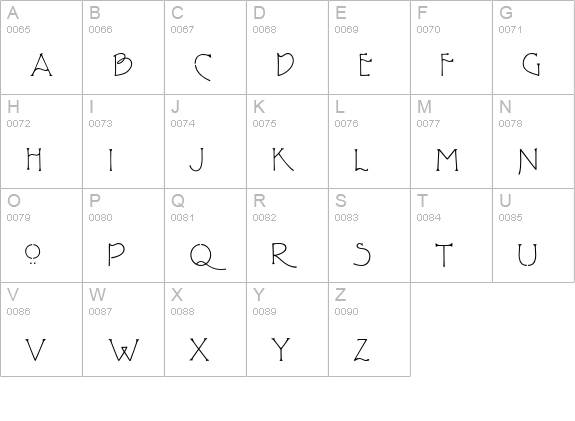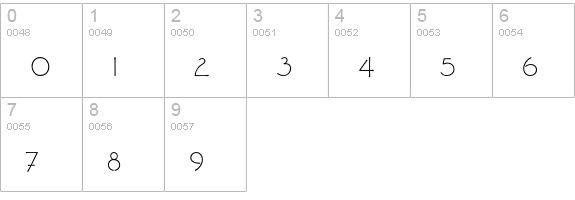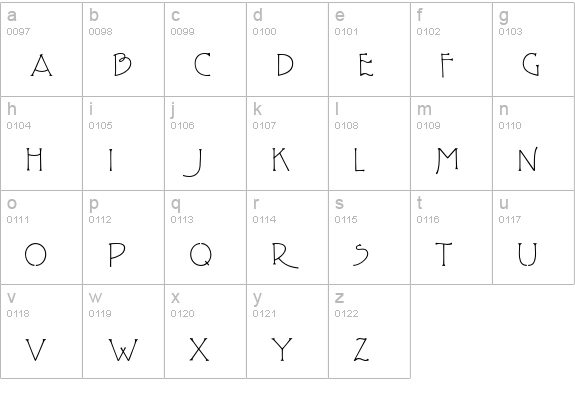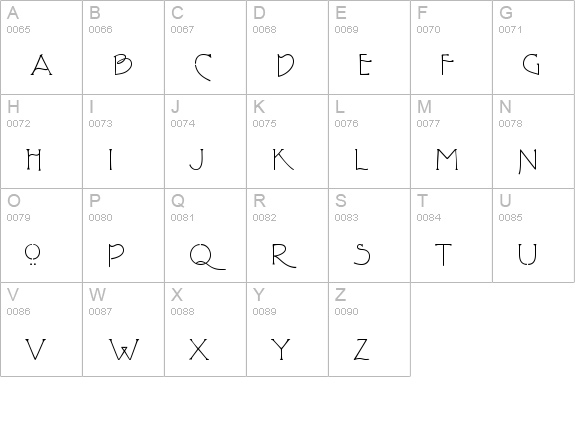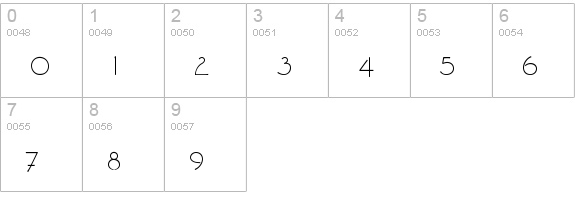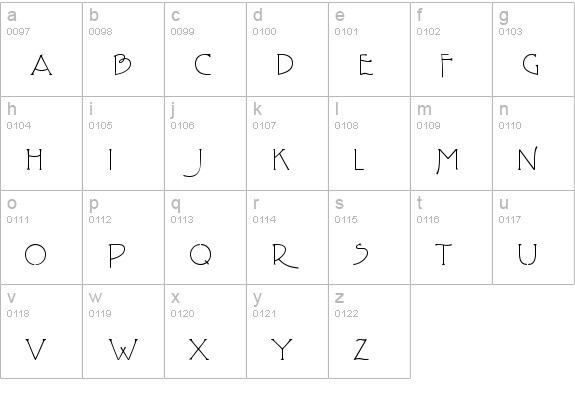
P22FLLWTerracotta-Alternates Font Details
P22FLLWTerracotta-Alternates font is a stunning display typeface that exudes elegance and sophistication. Its unique design captures the essence of traditional terracotta art, with intricate details and graceful curves. This font is perfect for adding a touch of classic charm to any project, whether it be branding, packaging, invitations, or editorial design. What sets P22FLLWTerracotta-Alternates font apart is not only its impeccable aesthetics but also its versatility. With a wide range of alternate characters and ligatures, this font allows you to create truly custom designs that stand out from the crowd. Whether you're looking for a delicate swash or a decorative flourish, P22FLLWTerracotta-Alternates font has you covered. And the best part? P22FLLWTerracotta-Alternates font is completely free to download at FontsMarket.com. Yes, you read that right - this exquisite typeface is freely available for all your design needs. So why wait? Enhance your projects with the timeless beauty of P22FLLWTerracotta-Alternates font and make a lasting impression.